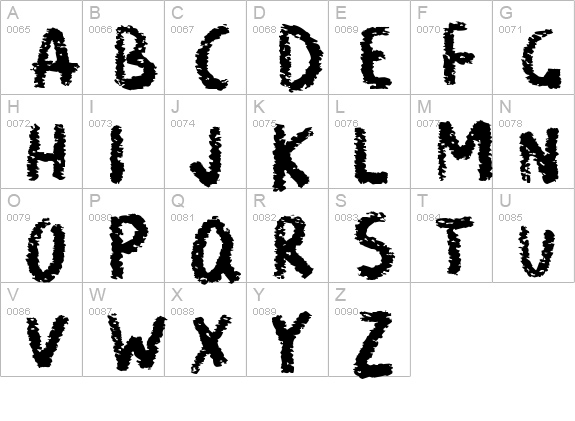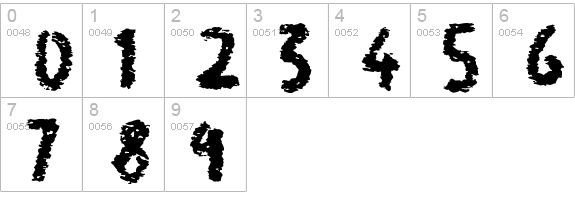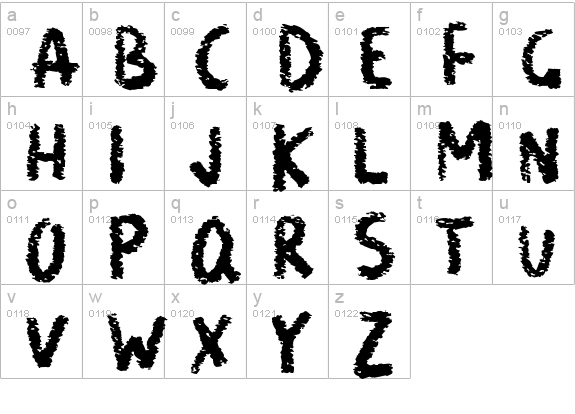
Neat Chalk font is a charming and whimsical typeface that captures the essence of hand-drawn chalk lettering. With its authentic texture and playful vibe, this font is perfect for adding a touch of creativity and personality to your designs. The irregular edges and slight imperfections give Neat Chalk font a unique and handmade feel, making it ideal for projects that require a casual and artistic look.